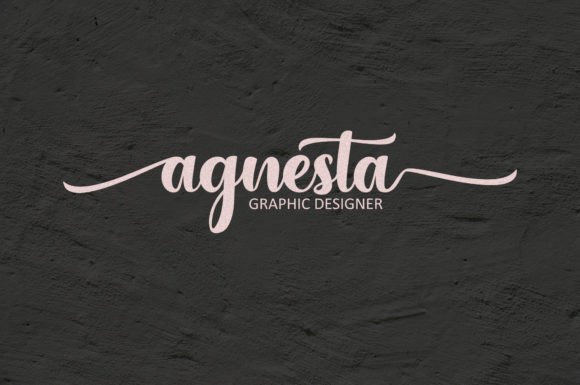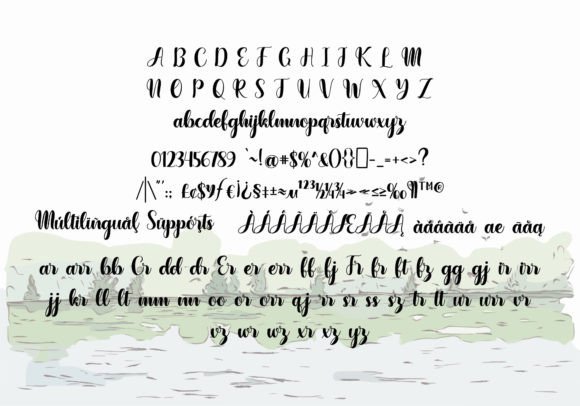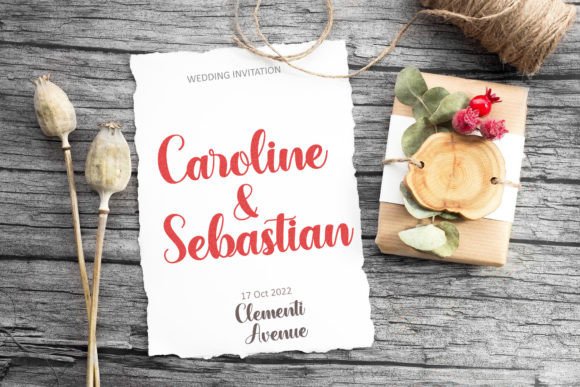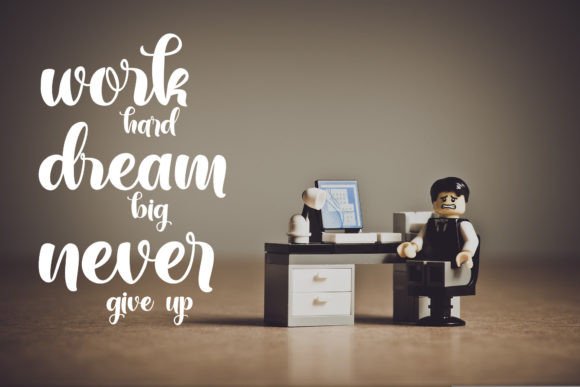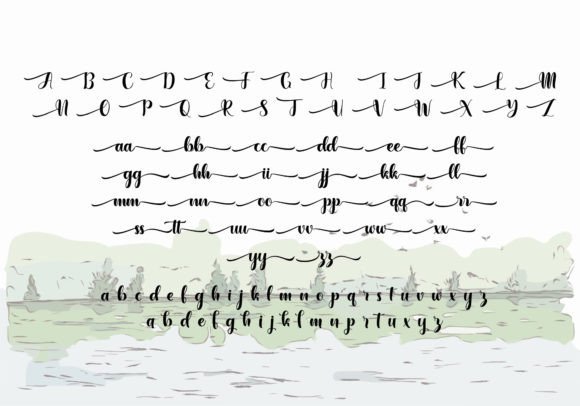
Introduction to Madagascars Font
As a designer, you know the thrill of stumbling upon the perfect font for a creative project. It’s that moment when everything falls into place, and your vision comes to life. For me, that moment happened when I discovered the enchanting Madagascars Font. Its delicate and elegant handwritten style has been a game-changer in my design work, and I’m excited to share it with you.
What makes Madagascars Font truly special is its incredible versatility. Whether you’re working on a high-quality brochure, a website, or a social media graphic, this font is sure to elevate your design to the next level. With its transparent background and PUA encoded glyphs, you can access all the swashes and characters you need to create stunning designs.
Key Features of Madagascars Font
- High-quality, unique font design suitable for creative projects and design resources.
- Perfect for use in various creative projects, including graphic design, digital art, and typography.
Honest Review: Madagascars Font
I recently stumbled upon the Madagascars Font while searching for a design resource to enhance my creative project. As a designer, I’m always on the lookout for high-quality fonts that can elevate my work.
Here’s what I think of this font:
- ✨ The Madagascars Font is incredibly versatile and can be used for a wide range of creative projects, from digital designs to print materials.
- ✨ The high-quality design of the font is impressive, with a transparent background that makes it easy to use on any background.
- ⚠️ The font is not suitable for all types of projects, particularly those that require a more formal or professional tone.
- ⚠️ The font may not be as readable at smaller font sizes, which can be a problem for designers who need to use it for small text.
Using Madagascars Font in Creative Projects
Tips for Getting the Most Out of Madagascars Font
For best results, use Madagascars Font on a transparent background to make it stand out. You can also experiment with different font sizes and colors to create a unique look.
Common Use Cases for Madagascars Font
Madagascars Font is perfect for designing logos, business cards, and other marketing materials. It’s also great for creating eye-catching headings and titles in presentations and documents.